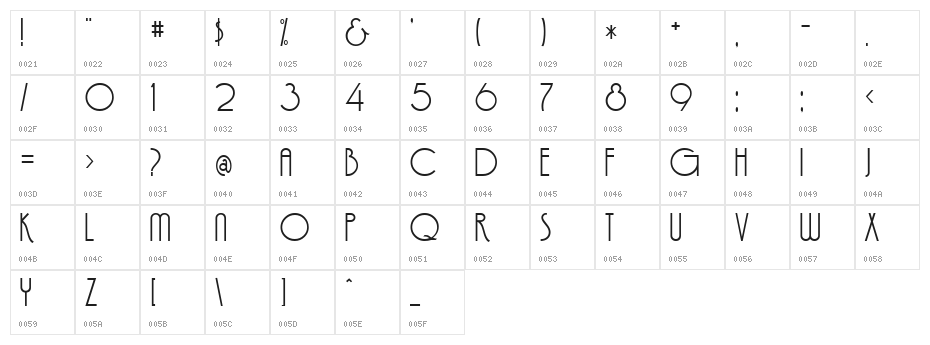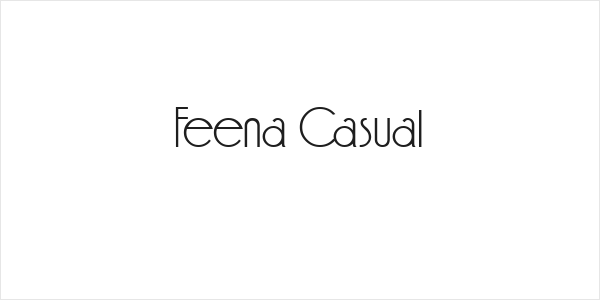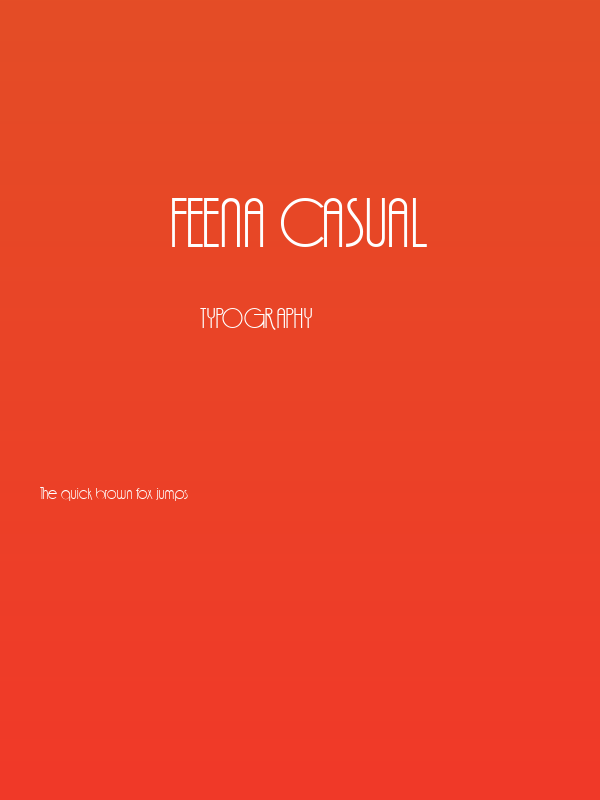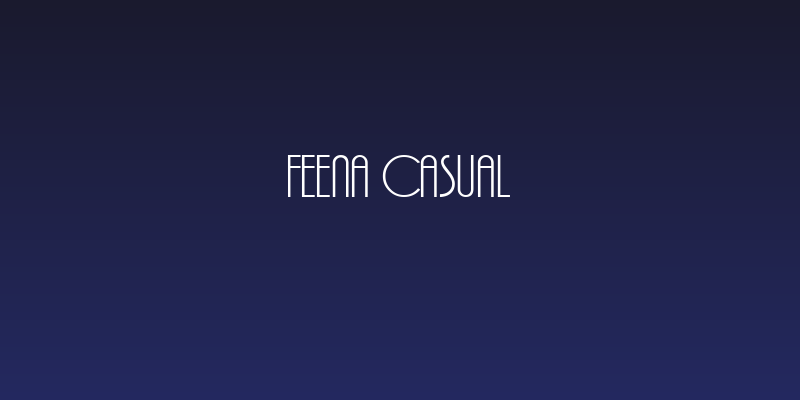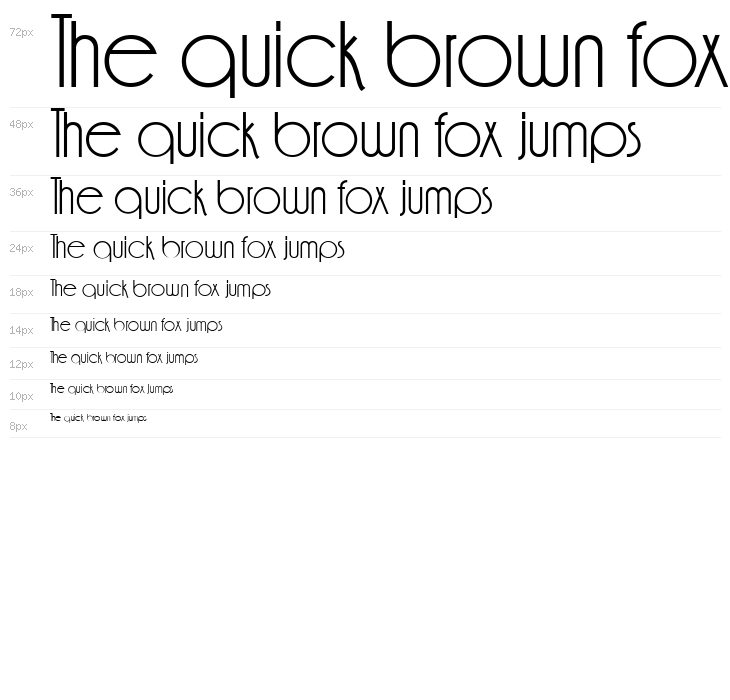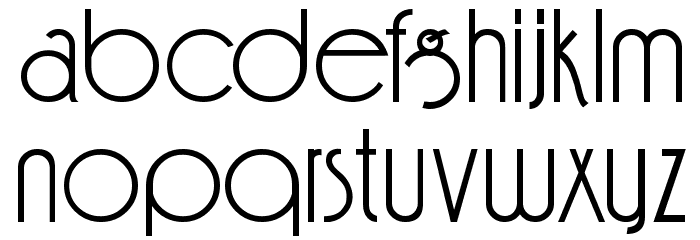
Feena Casual Font
Feena Casual Description
This font features a sleek, modern design with clean lines and a geometric structure. The characters are tall and narrow, giving it an elegant and sophisticated appearance. The uppercase letters are particularly striking, with a uniform height and consistent stroke width. The lowercase letters maintain the same geometric style, with rounded edges that add a touch of softness to the overall look. The numerals are clear and easy to read, matching the style of the alphabet. Special characters are included, maintaining the font's cohesive design. This font is versatile and can be used in various design projects.